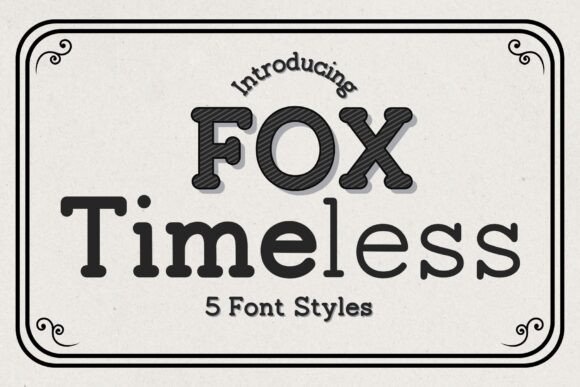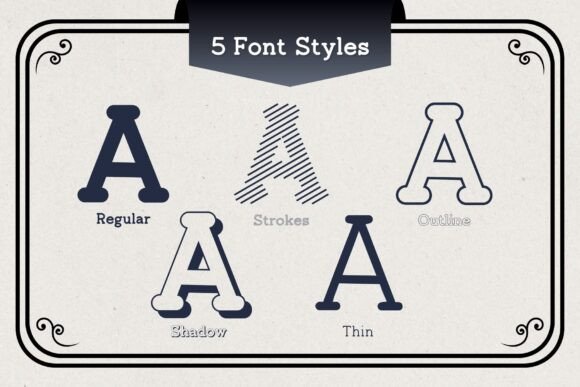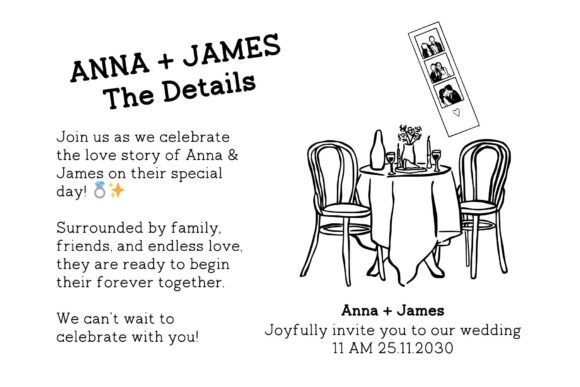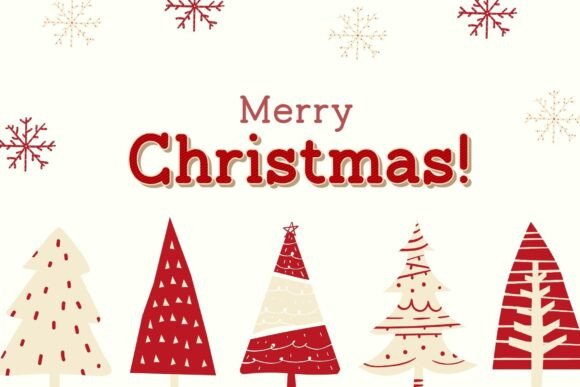
Fox Timeless Font
About the Fox Timeless Font
From logos to headlines, the Fox Timeless Font is the perfect choice for making a lasting impression. Fox Timeless is a beautifully crafted font that combines vintage charm with a modern touch. With five distinct styles—Regular, Shadow, Strokes, Outline, and Thin—this typeface offers versatility for a wide range of creative projects.
Designed for timeless elegance, Fox Timeless is perfect for invitations, branding, packaging, and editorial designs. Whether you need a bold and structured look or a delicate, refined style, this font family adapts effortlessly to your needs.
Fox Timeless excels in applications requiring a touch of vintage sophistication. Headlines, logos, and short-form text benefit greatly from its elegant character. It’s ideally suited for branding projects aiming for a classic yet modern feel, particularly in the fashion, food, and beverage, or luxury goods sectors. However, its delicate strokes are less effective for body copy or UI elements where high readability is paramount.
Pairing Fox Timeless with a clean sans-serif like Montserrat or Open Sans provides excellent contrast and enhances readability in designs where both fonts are used. For a more playful aesthetic, a rounded geometric sans-serif such as Nunito would work well. Conversely, pairing it with a script font like Great Vibes can add a touch of handwritten charm, but should be used sparingly to avoid overwhelming the design.
The overall personality of Fox Timeless is refined and elegant, conveying a sense of timeless quality and understated luxury. Its versatility across its five styles allows for a range of expressive possibilities within that core aesthetic.
Fox Timeless Font Usage Examples
Fox Timeless Font Example